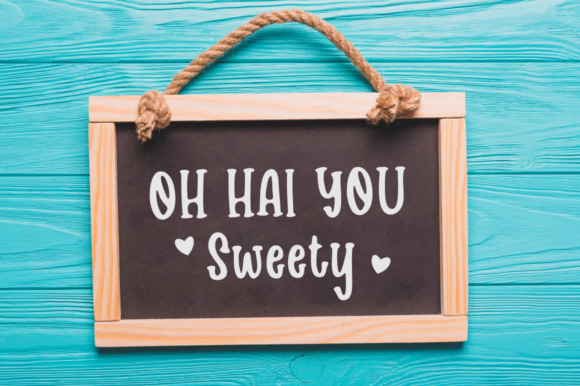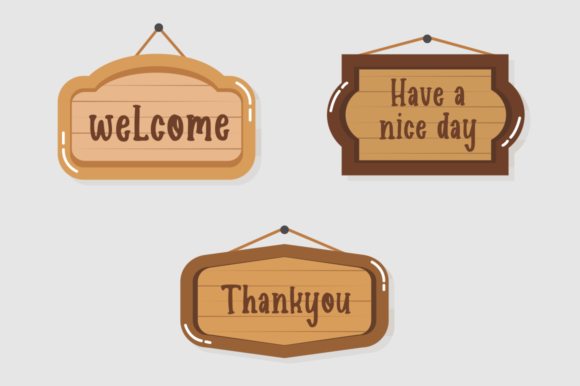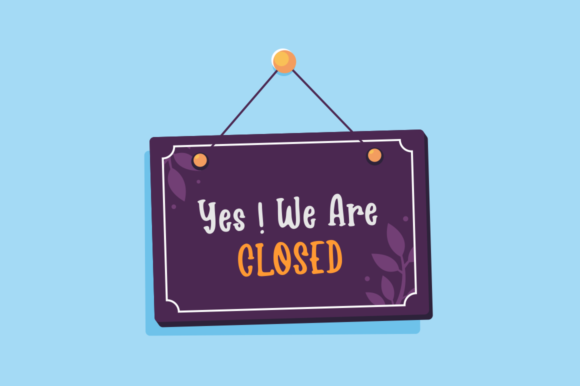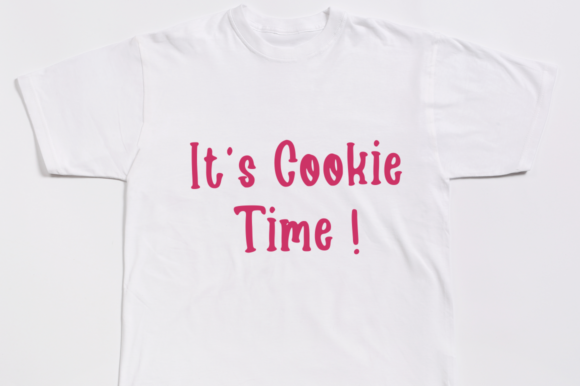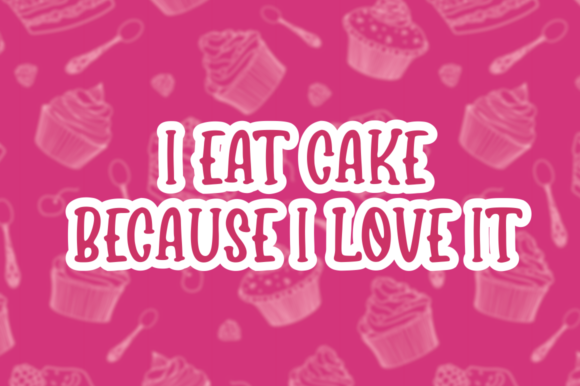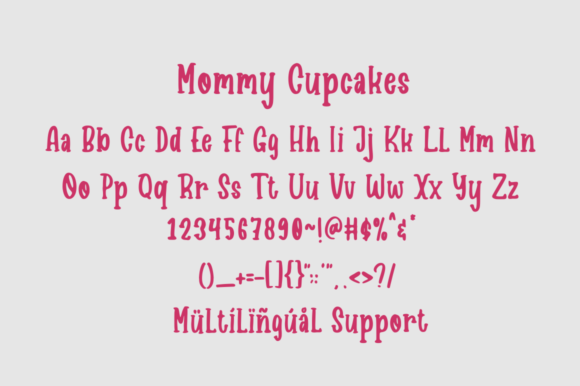
Mommy Cupcakes Font
About Mommy Cupcakes Font
Mommy Cupcakes is a sweet and friendly handwritten font. Its natural and unique style makes it incredibly fitting to a large pool of designs. The only limit is your imagination!